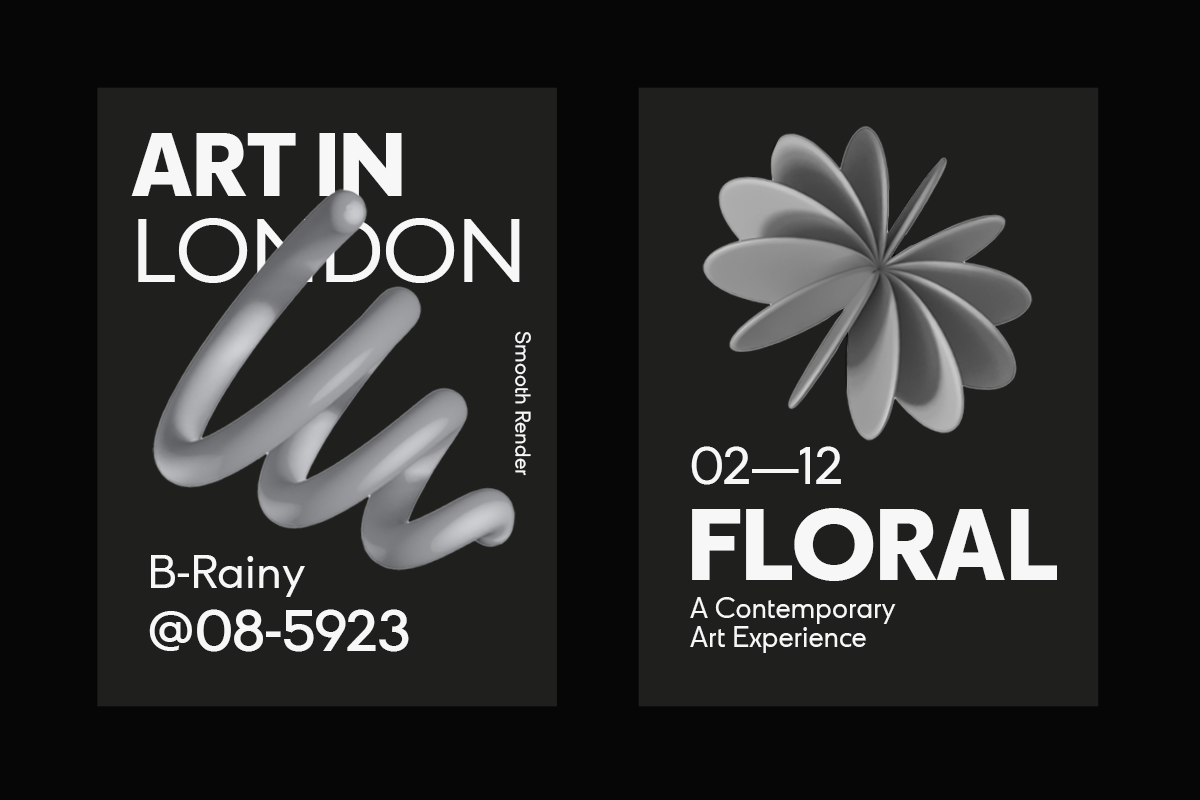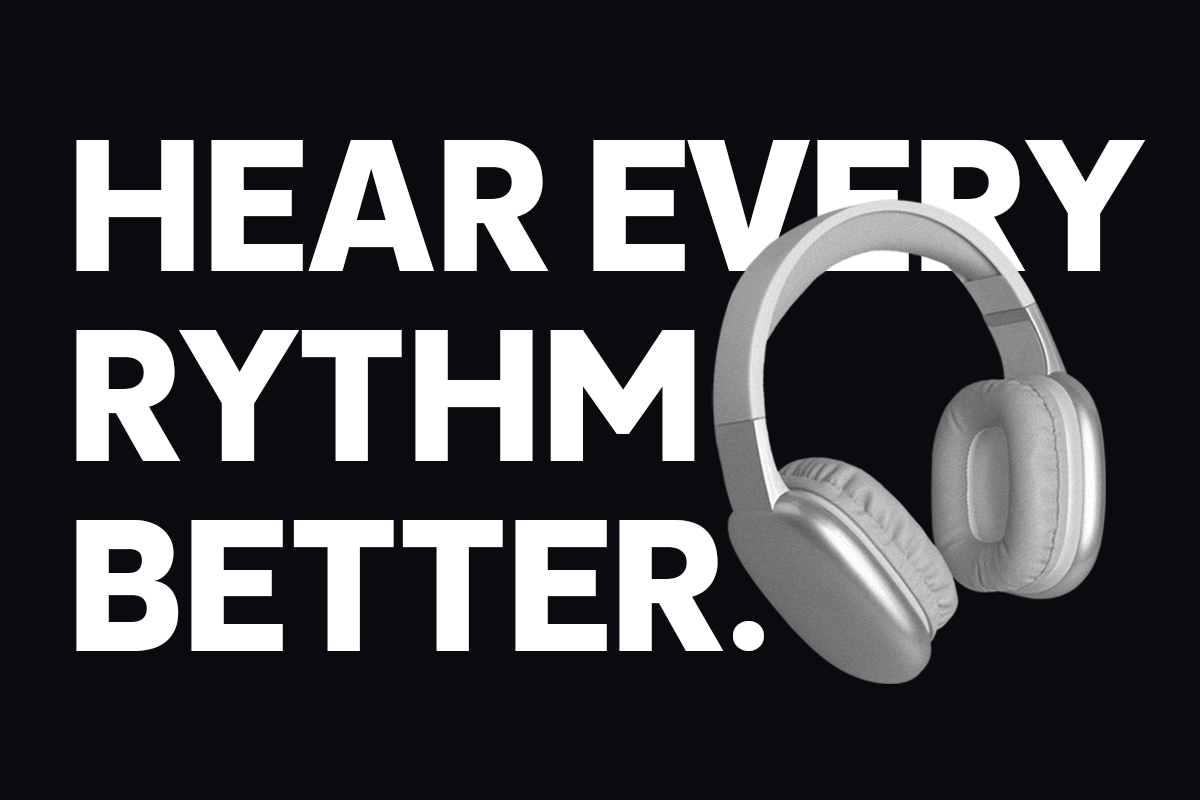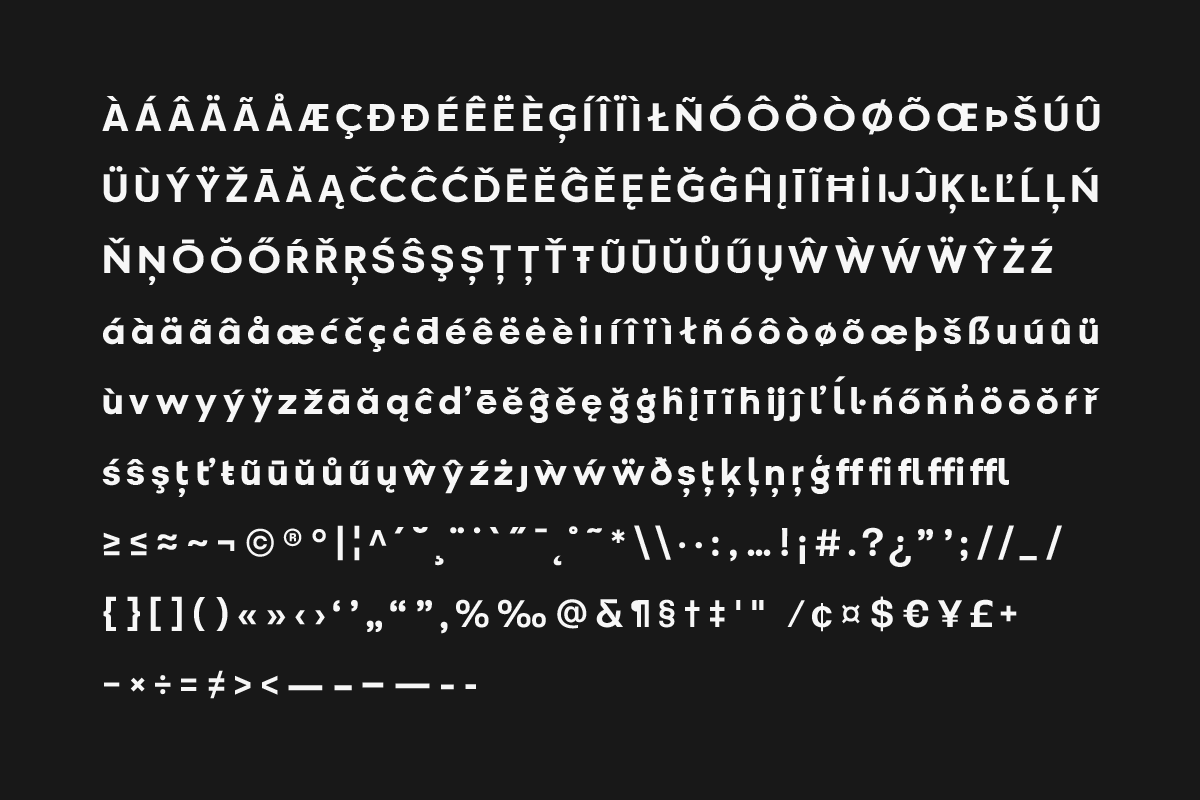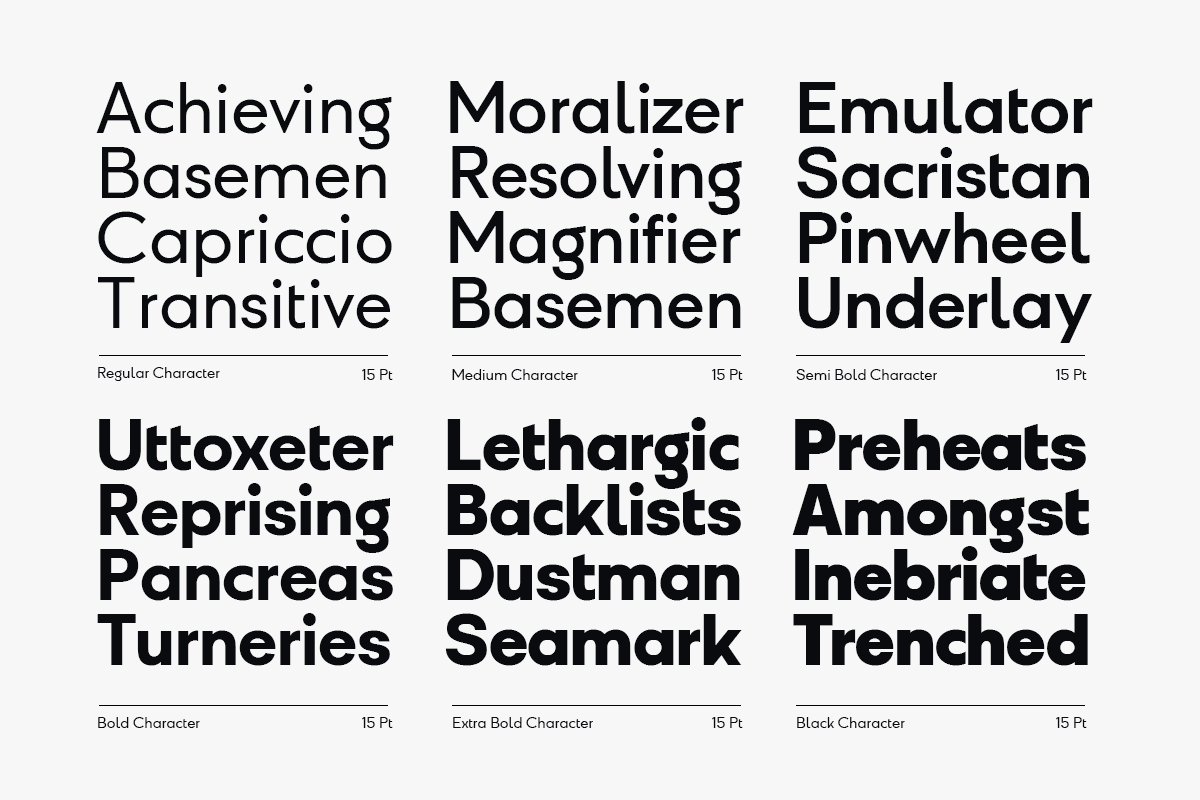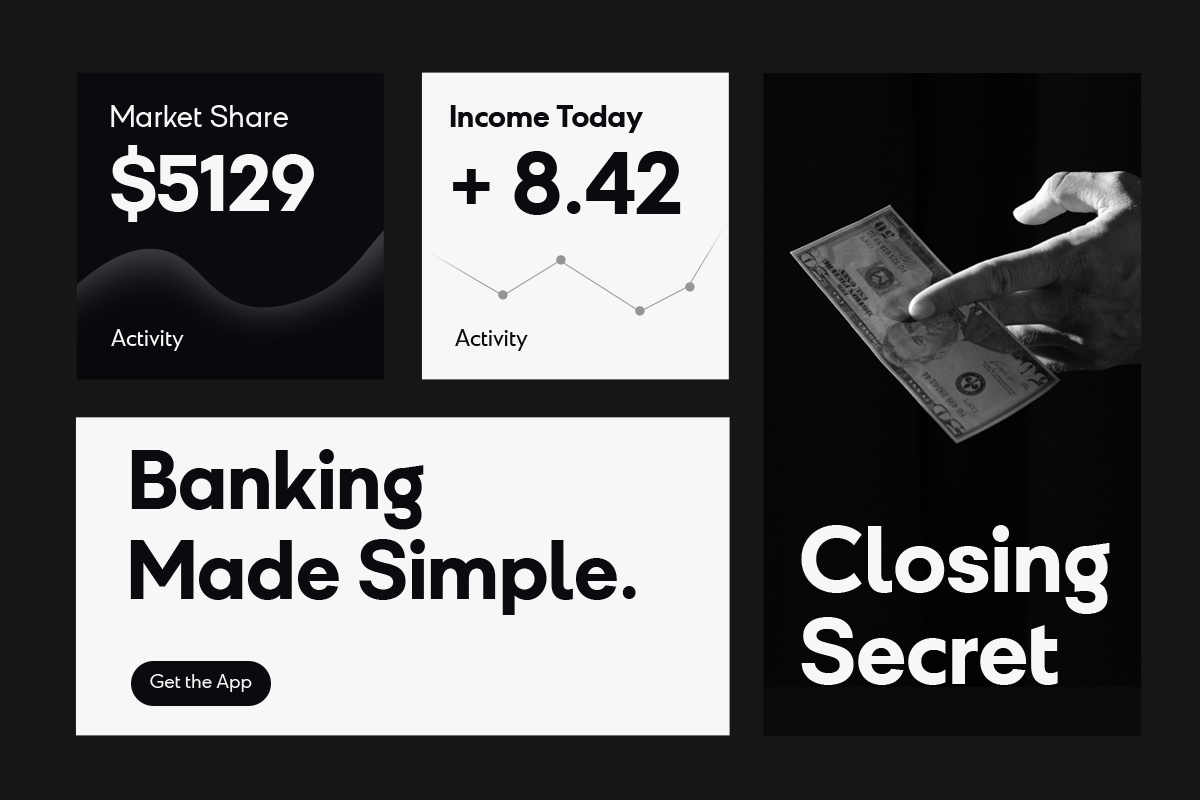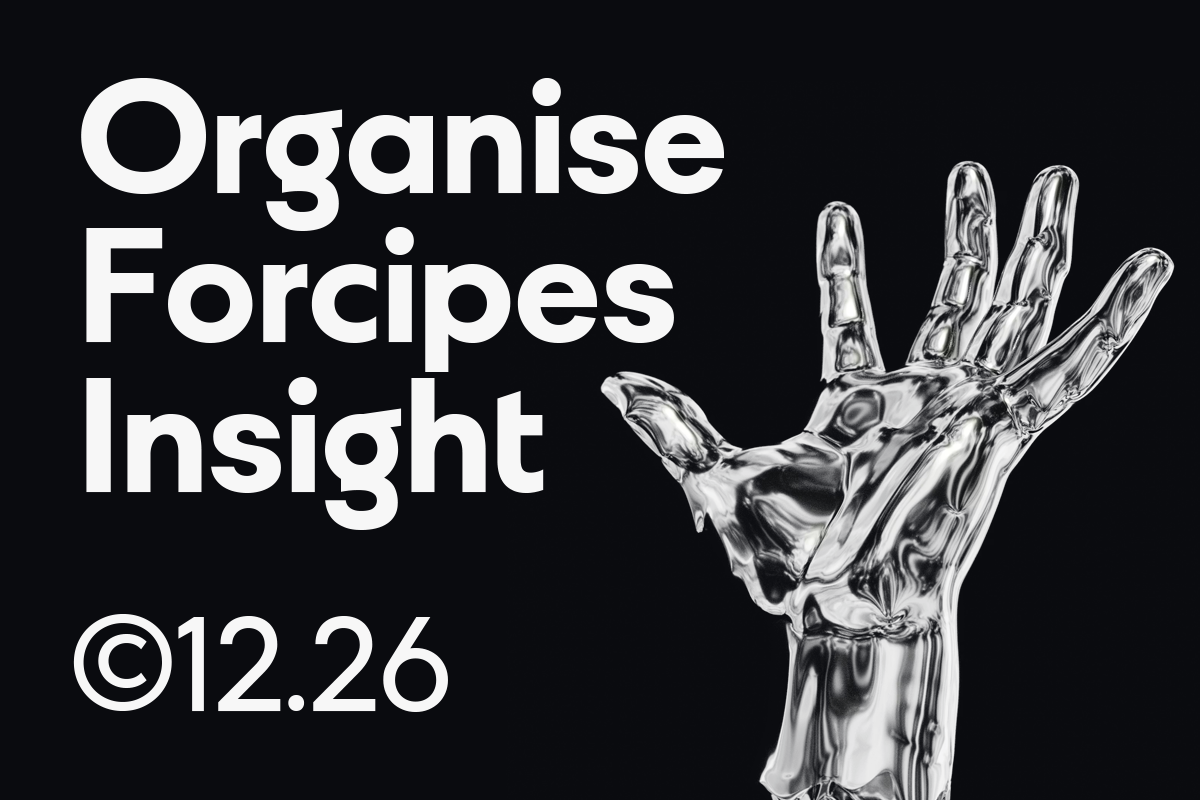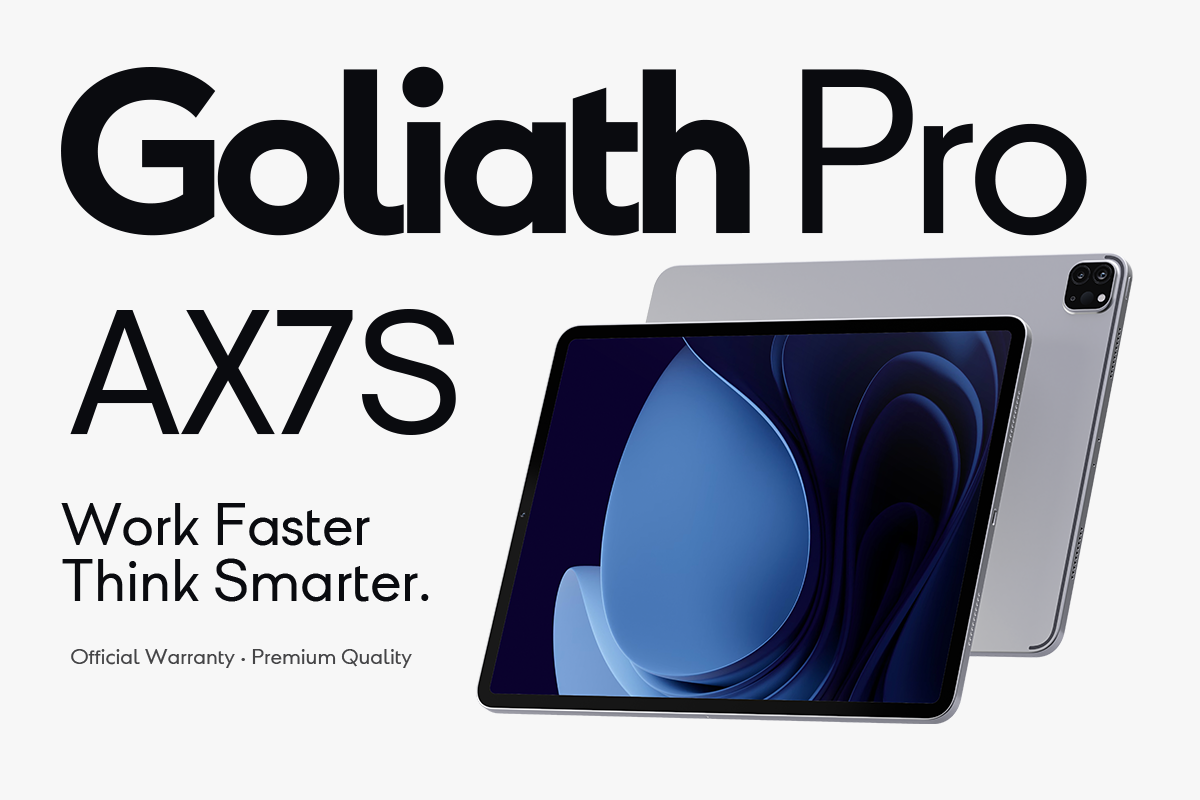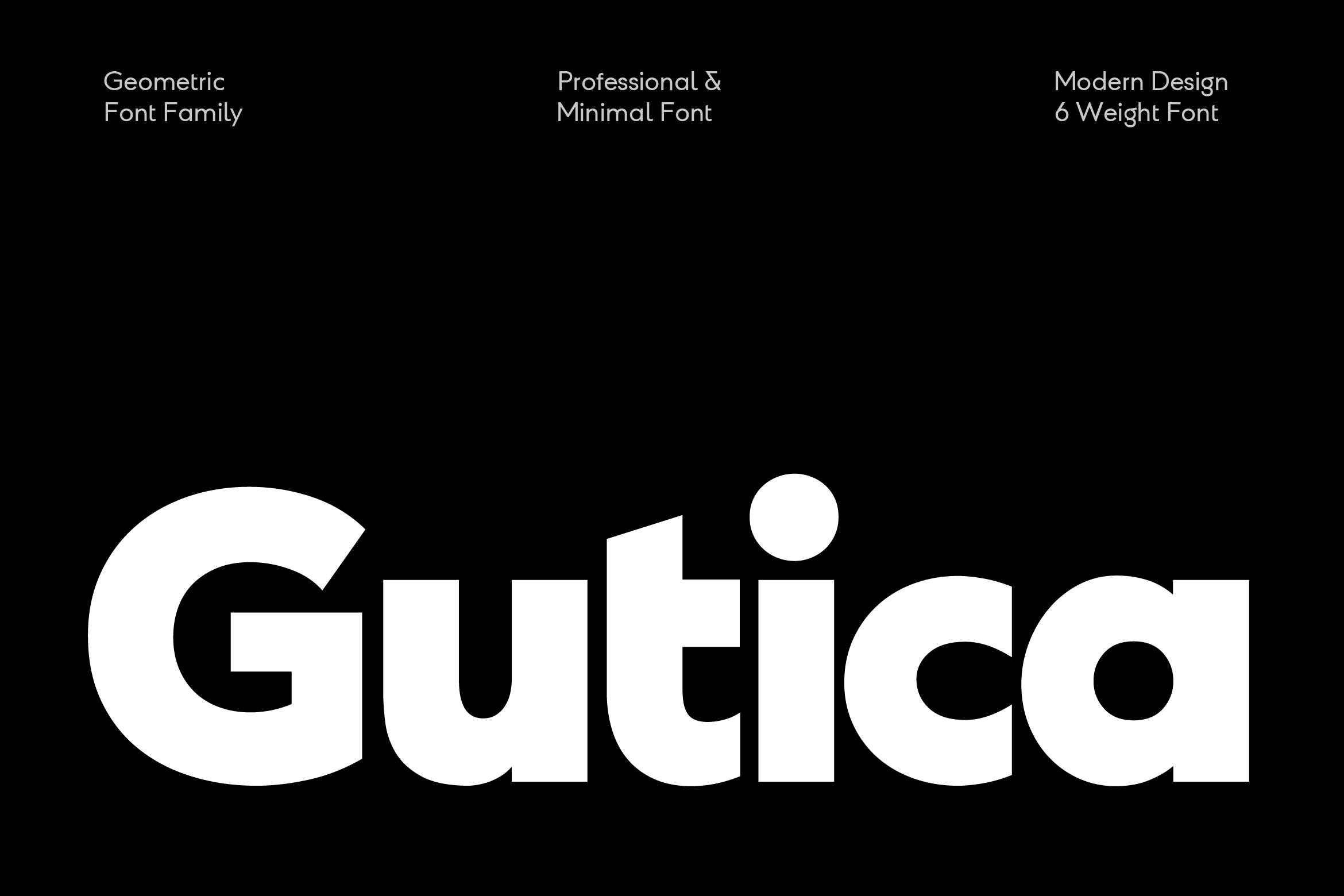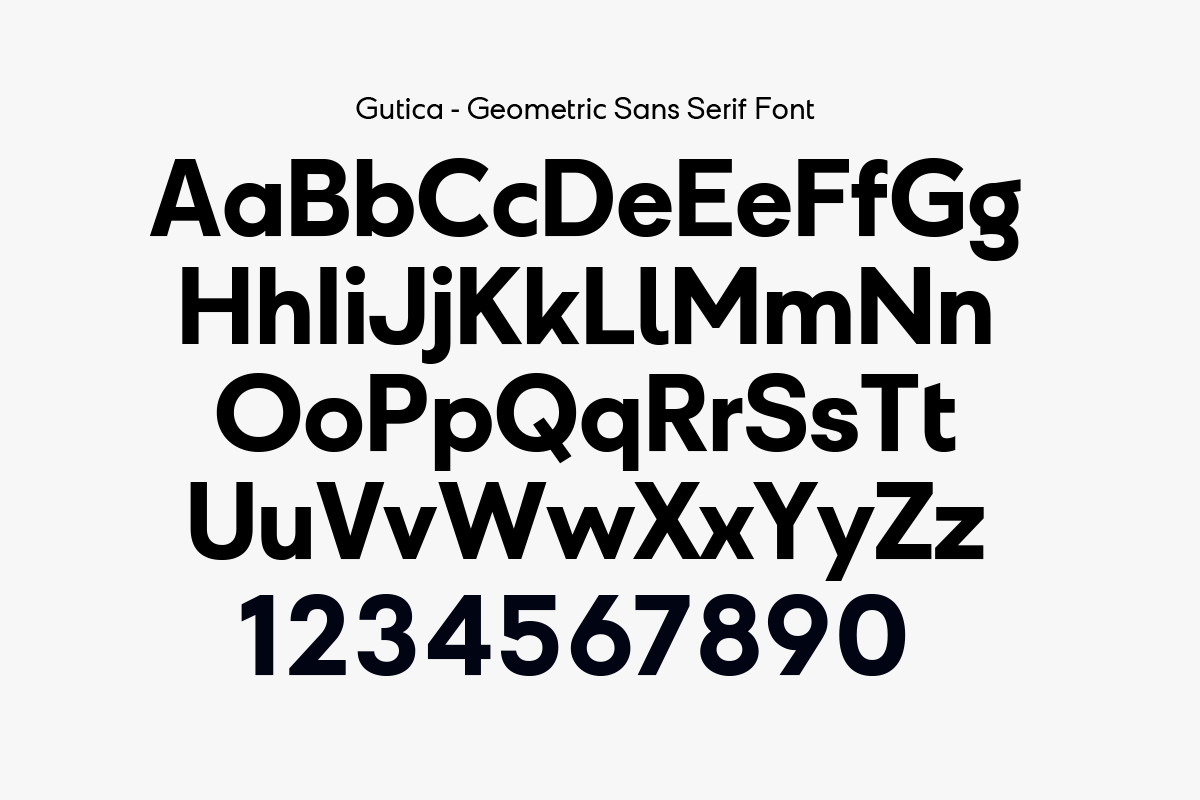
Gutica – Geometric Font Family
Gutica is a modern geometric sans serif font crafted for contemporary branding and visual identity. Built with clean letterforms, precise proportions, and confident geometric shapes, Gutica delivers logos that feel bold, elegant, and instantly recognizable across digital and print media.
Designed with a minimalist structure yet rich in character, Gutica is ideal for brands that want to appear modern, professional, and refined—without losing a friendly and versatile tone. Each curve and corner is carefully balanced, ensuring excellent readability and visual consistency at both large display sizes and small body text.
Perfect for logos, brand identities, websites, packaging, social media, editorial layouts, and marketing materials, Gutica adapts seamlessly to a wide range of creative projects. Its strong geometric foundation gives your design a timeless, contemporary feel while maintaining clarity and impact in every application.